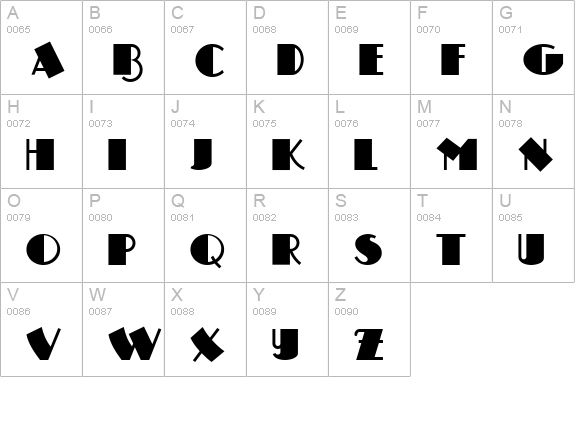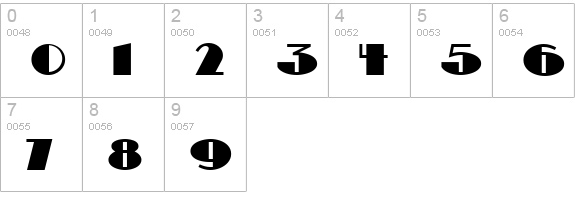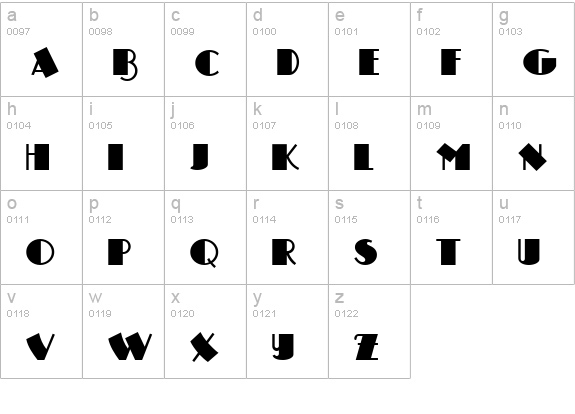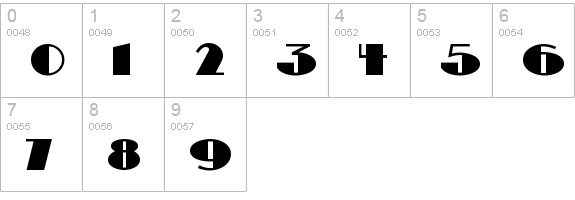
Drumag Studio NF font is a unique and stylish typeface that exudes a sense of artistic flair and modern sophistication. With its sleek lines and contemporary design, this font is perfect for a wide range of creative projects, from branding to editorial design. The geometric shapes and clean letterforms make Drumag Studio NF font both versatile and eye-catching, ensuring that your text stands out with a touch of elegance. The best part about Drumag Studio NF font is that it is completely free to download! You can easily access this stunning typeface at FontsMarket.com, where you can unleash your creativity without any cost. Whether you're working on a personal project or a professional design, Drumag Studio NF font is a fantastic choice that will elevate your work to the next level. Download it today and add a touch of sophistication to your designs!